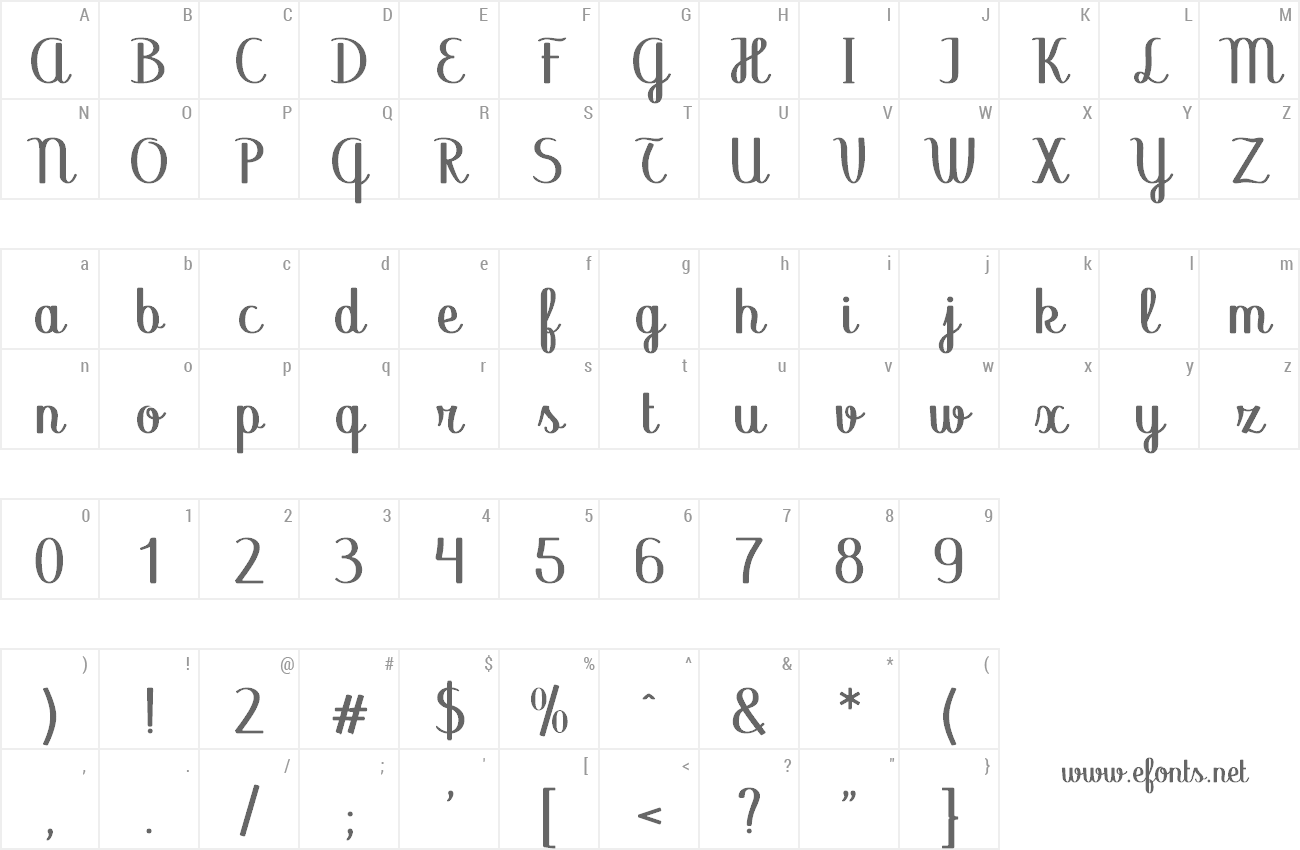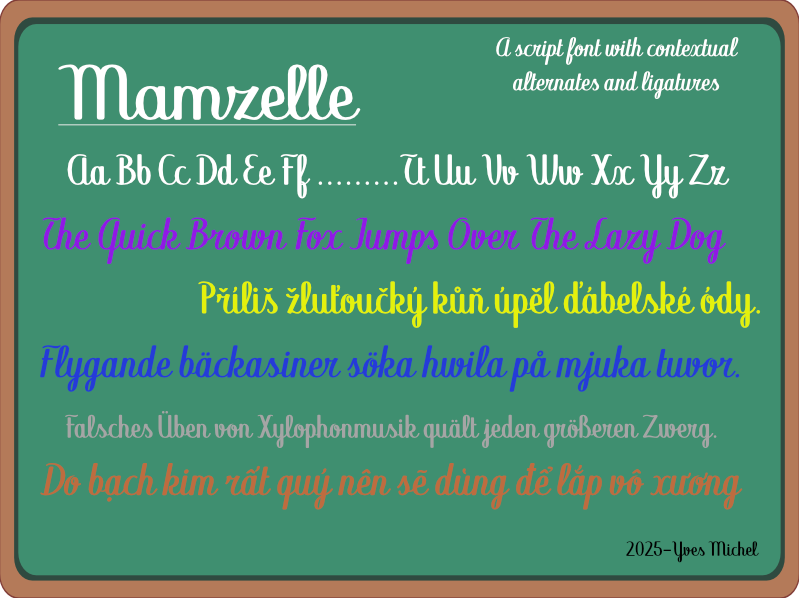
Preview and download Mamzelle Font. Created by Yves Michel in Script Various styles with Free for personal use license.
| Font name: | Mamzelle |
| Author: | Yves Michel |
| Note by Yves Michel | |
This font contains an Opentype 'rlig' feature, consisting of ligatures and contextual alternates. It is derived from my 'Abecedary" font with heavier vertical stems, additional ligatures and alternates. Cette police contient une fonctionnalit� 'rlig', comprenant des ligatures et alternatives contextuelles. Elle est d�riv�e de ma police 'Abecedary' avec des verticales plus �paisses, des ligatures et alternatives additionnelles. |